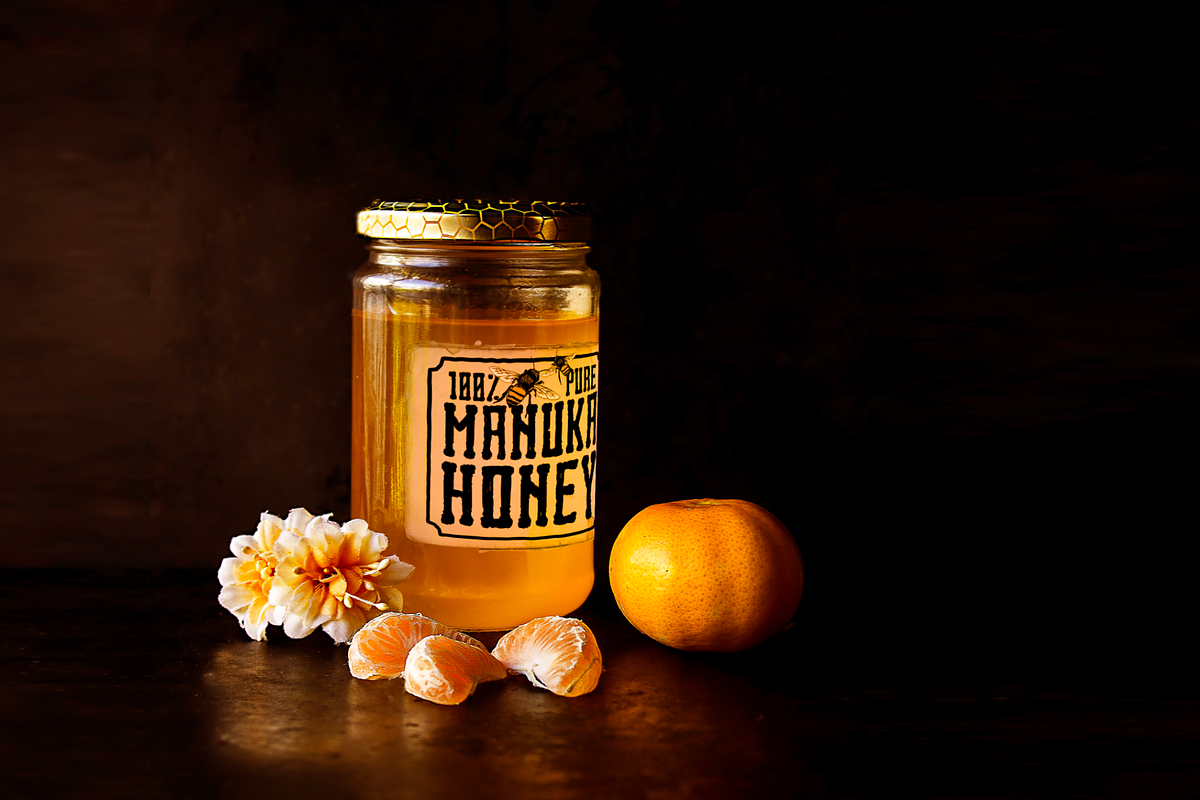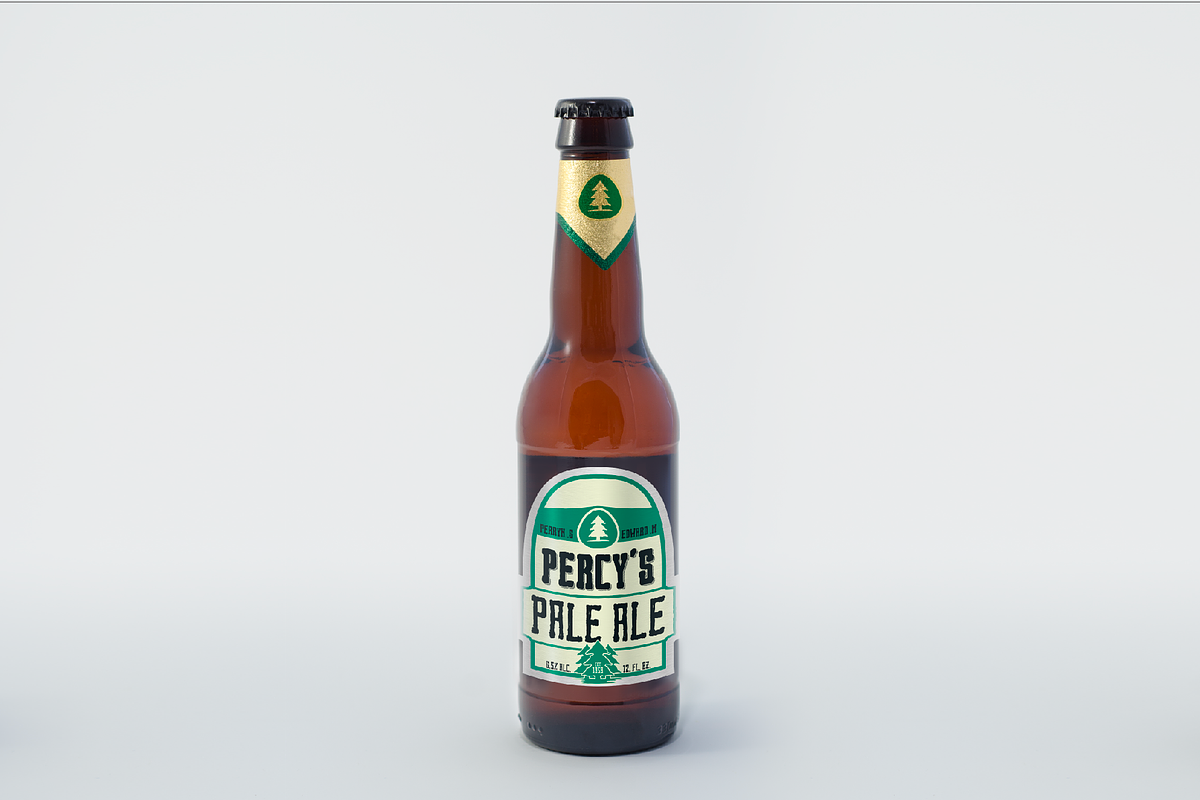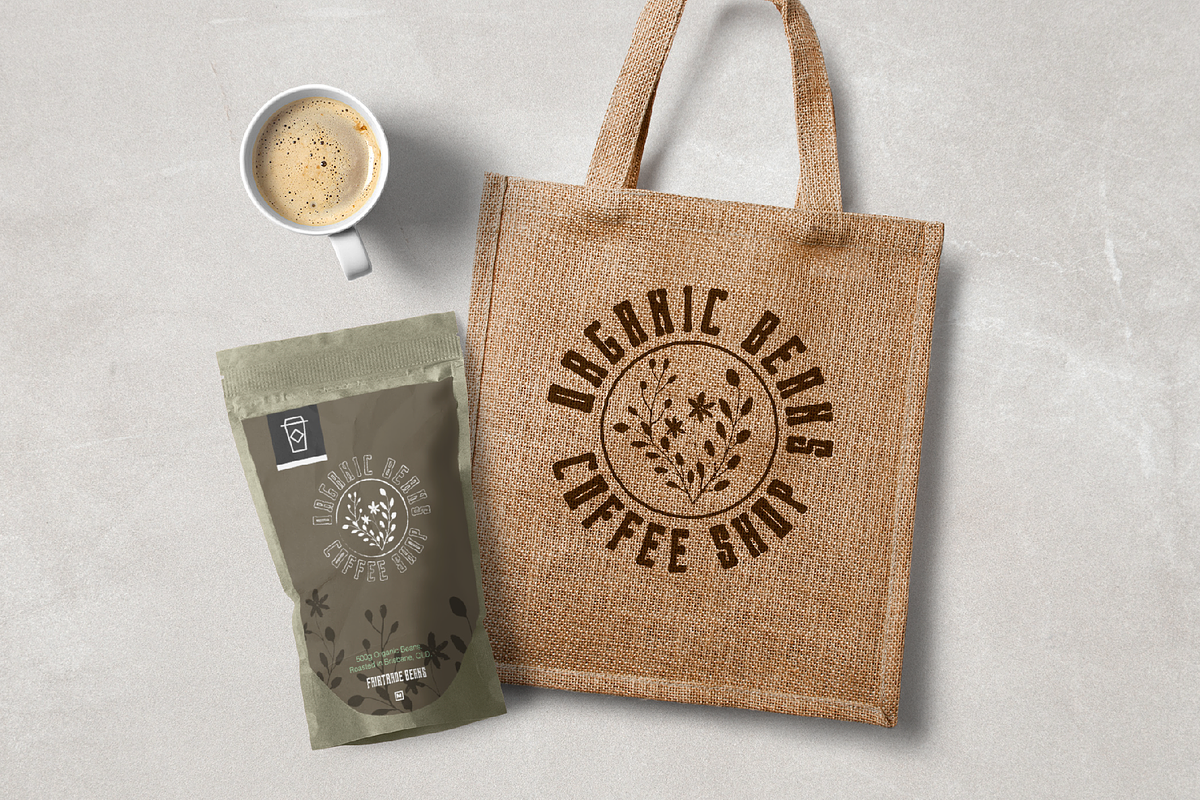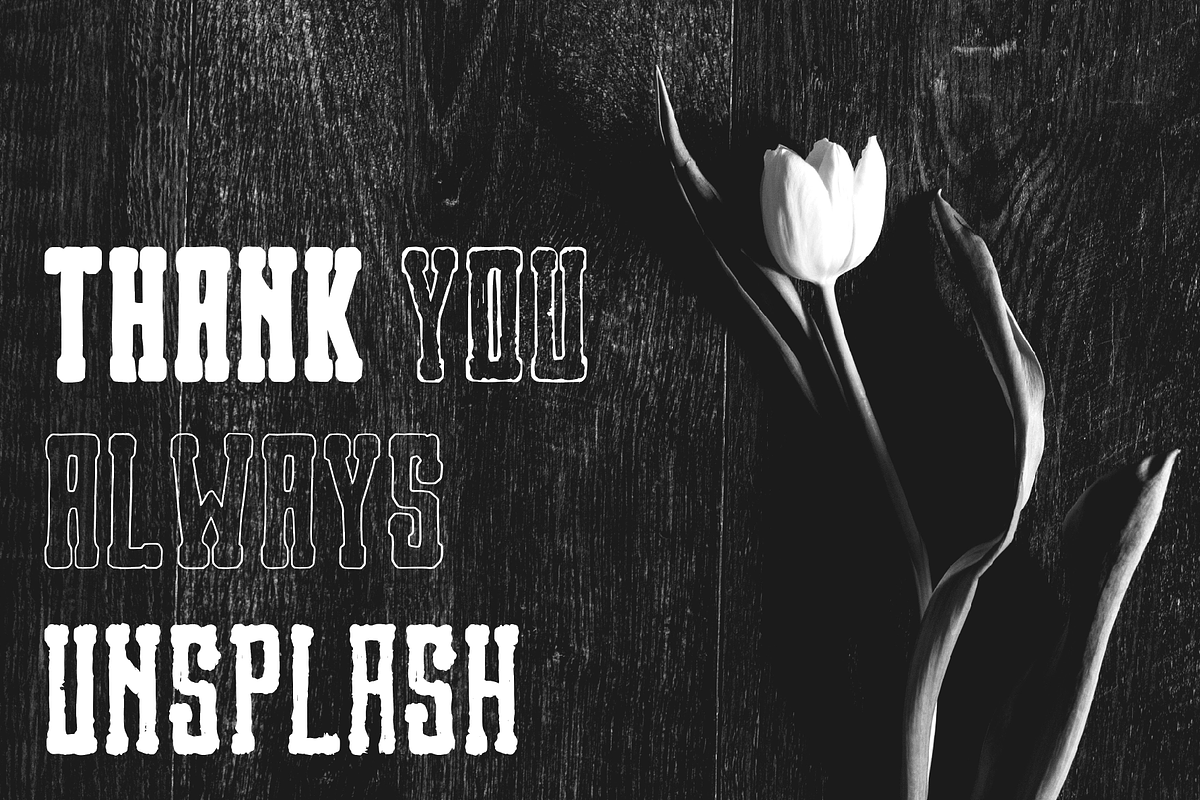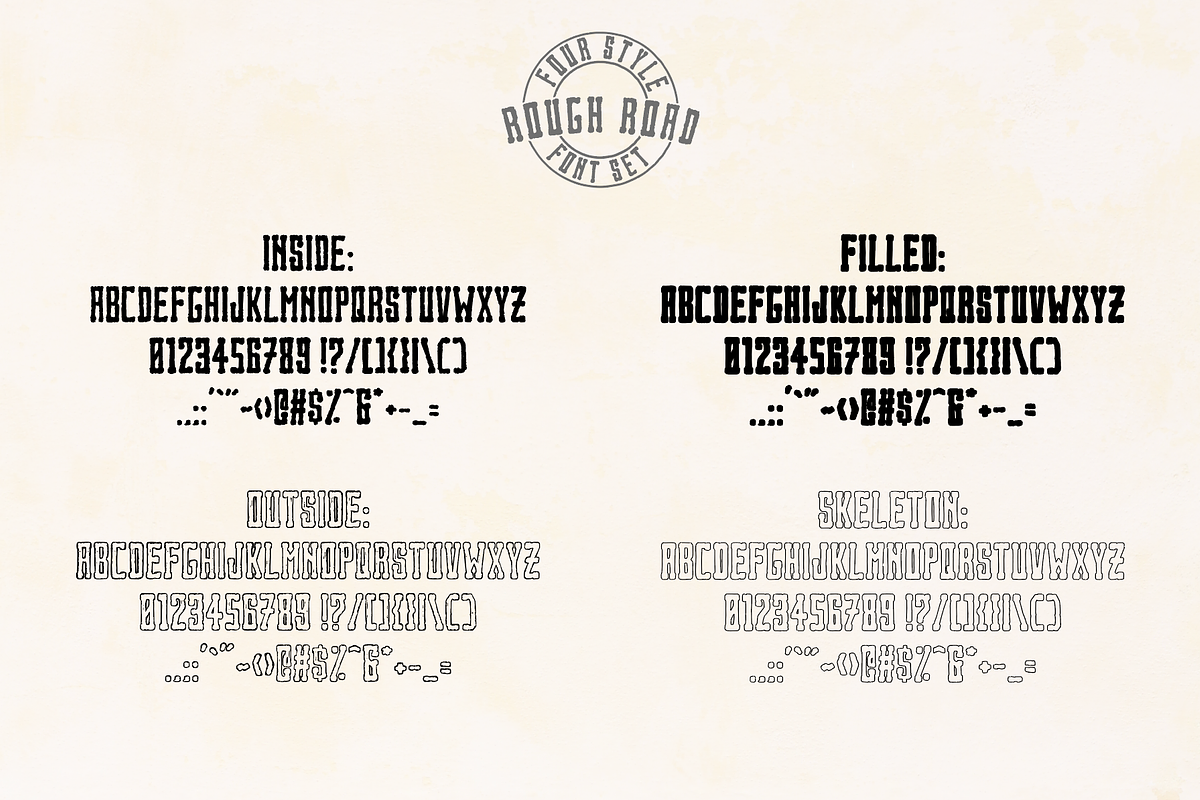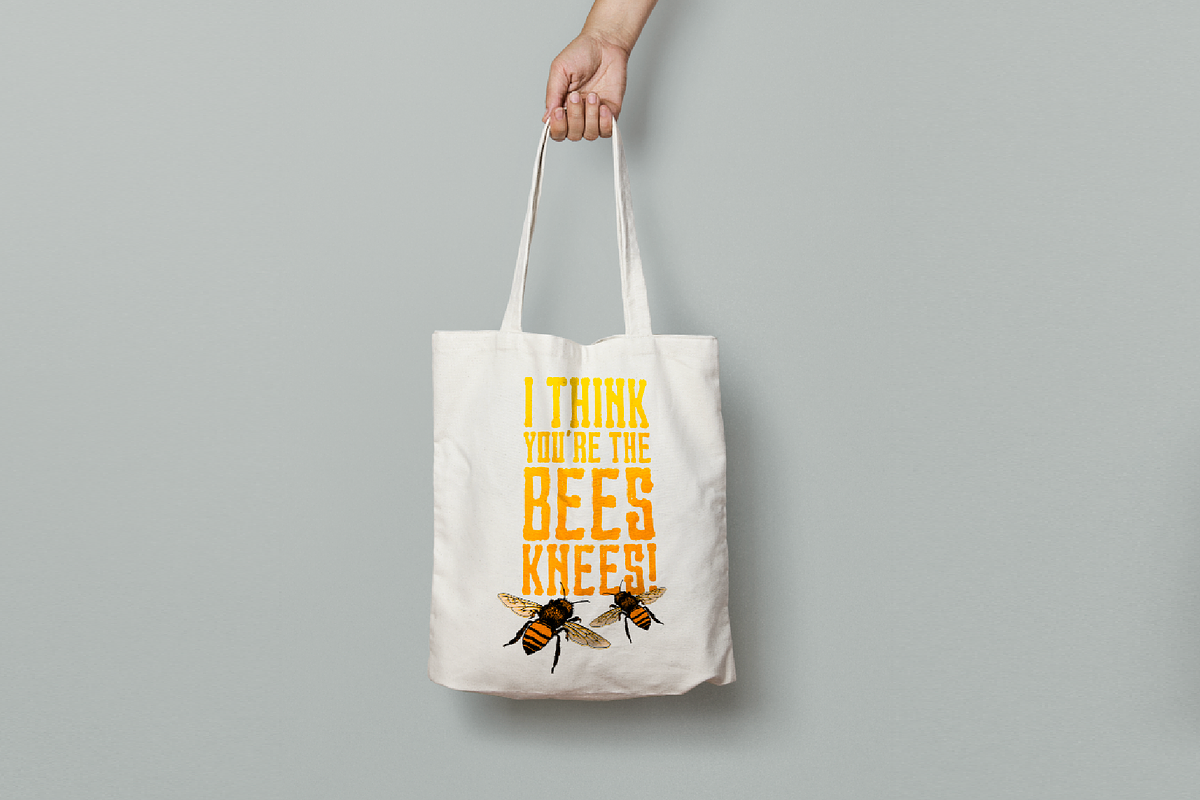
Rough Road - A versatile bold font!
Introducing: Rough Road! A hand drawn and handcrafted font with four variations!
Rough Road - Inside: A messy and somewhat delightful font that is filled in the middle but rough around the edges. Rough Road - Outside: Clean edges but rough and hollow on the inside. Rough Road - Filled: A clean bold and filled in font. Rough Road - Skeleton: The clean and delicate remains of an inverted filled font, but slightly better!
Rough Road is perfect for chalkboards, labels and anything organic looking. Absolutely perfect for anything that needs to be bold and rough around the edges, or the complete opposite!
- Rough Road Filled
- Rough Road Inside
- Rough Road Outside
- Rough Road Skeleton